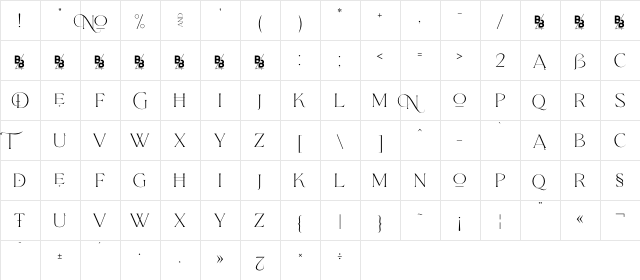
| Foundry | Balibilly Design |
| Designer | Balibilly Design |
Design Context for Qene-G Typeface
Qene-G takes a measured approach to typography — its balanced proportions and neutral character make it a reliable workhorse for both digital and print work.